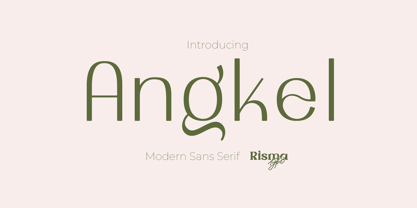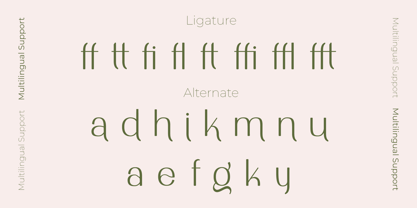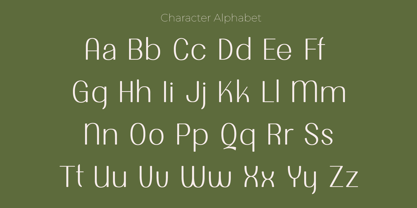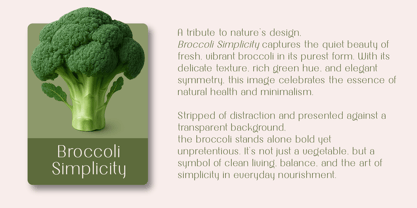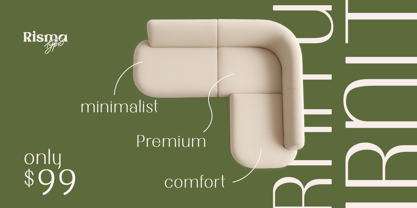
Angkel
by Risma Type
The Angkel Font Family was designed by Risma Mulyasari and published by Risma Type. Angkel contains 2 styles and family package options.
# 🔷 Angkel
Category: Modern Sans Serif Typeface (Effortless Elegance Meets Digital Clarity)
## 🌟 A Modern Typeface that Balances Elegance and Function
Looking for a typeface that’s refined, contemporary, and effortlessly readable?
Meet Angkel — a clean modern sans serif typeface designed with elegant proportions and digital harmony. Whether you’re building a brand or crafting a sleek interface, Angkel delivers a blend of subtle sophistication and professional clarity.
## 🔑 Key Features
* 🧼 Clean modern sans-serif style with geometric foundation
* 🔍 Smooth curves and open counters for optimal readability
* 🌍 Multilingual support (Latin Extended + Smart Diacritics)
* 🖨️ Screen & print ready with optimized kerning and legibility
> Angkel blends modern sensibility with timeless functionality — where digital precision meets elegant neutrality.
Designers: Risma Mulyasari
Publisher: Risma Type
Foundry: Risma Type
Design Owner: Risma Type